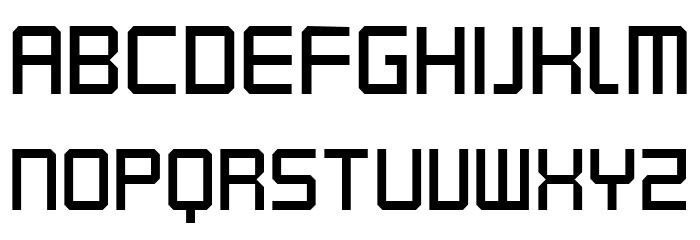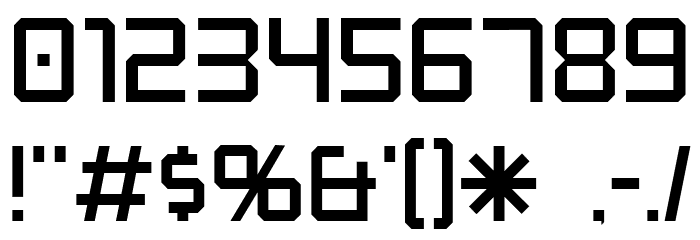
Karnivore Lite Font
This font features a bold, geometric design with a futuristic and industrial feel. The characters are constructed with straight lines and sharp angles, giving it a mechanical and structured appearance. The uppercase letters are uniform in height, while the lowercase letters maintain a consistent style, enhancing readability. The numbers and special characters follow the same geometric pattern, ensuring a cohesive look across all glyphs. The font's design is both modern and assertive, making it suitable for projects that require a strong visual impact.
- Font: Karnivore Lite
- Proposed Projects: Ideal for technology branding, video game titles, sci-fi movie posters, and industrial-themed designs.